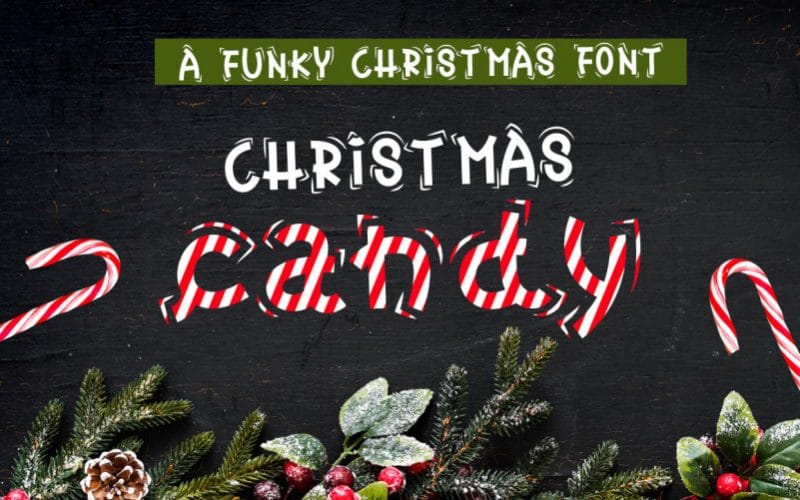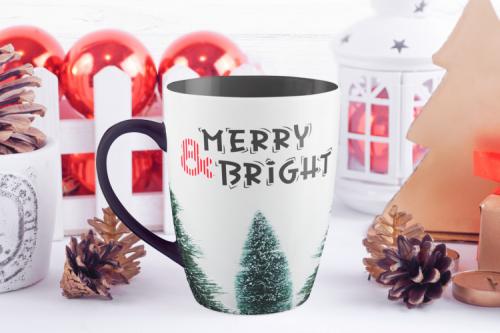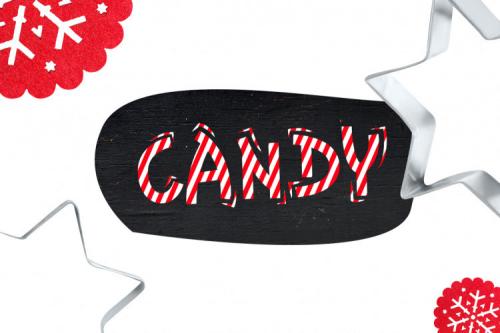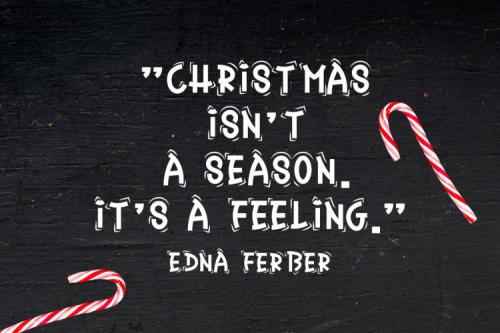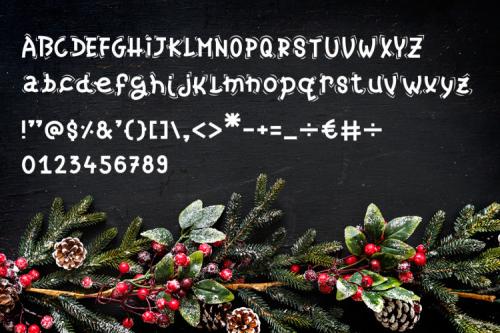
Christmas Candy Font
Christmas Candy is a beautiful decorative funky font inspired by Candy Canes. It is designed for cards, Christmas invitations, t-shirt design, logos, quotes design, mugs, etc.
Christmas Candy comes with uppercase, lowercase, basic characters, standard numbers, and punctuation.